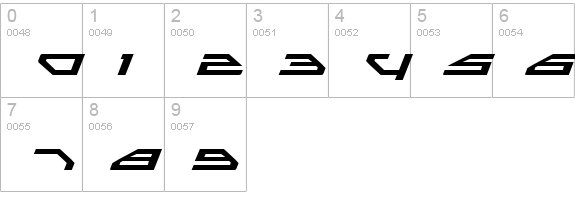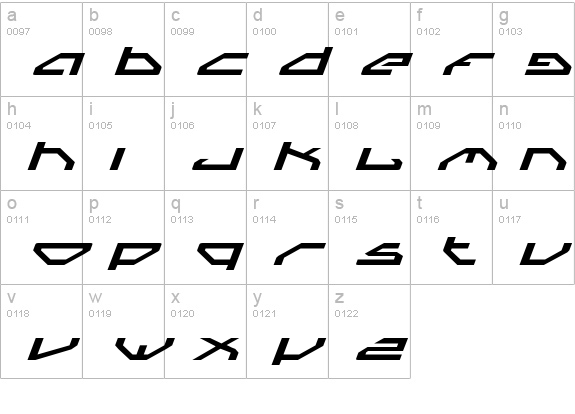
Spylord Expanded Italic is a distinctive, extended-width, italic variant in the Spylord typeface family \xE2\x80\x94 well suited to design and typography projects.
Spylord Expanded Italic font is a captivating and stylish typeface that exudes an air of mystery and intrigue. Its slanted and elongated letterforms add a touch of sophistication, making it the perfect choice for designs that require a touch of boldness and elegance. Designed with meticulous attention to detail, Spylord Expanded Italic font features subtle curves and sharp angles, creating a harmonious balance between sleekness and edge. This unique combination gives the font a distinctive and memorable look, making it ideal for logos, headlines, posters, and other creative projects. One of the most remarkable aspects of Spylord Expanded Italic font is that it is available for free download at FontsMarket.com. This means that you can easily access and use this remarkable typeface in your designs without any cost. Whether you are a professional designer or a passionate enthusiast, this free font will undoubtedly elevate your projects to new heights. With its expanded italic variant, Spylord offers even more versatility and dynamism. The italicized slant adds a sense of motion and energy to the text, making it particularly suitable for projects that require a sense of urgency or action. From thrilling movie posters to eye-catching advertisements, this font will captivate your audience and leave a lasting impression. Whether you are working on a personal project or a professional assignment, Spylord Expanded Italic font is a valuable addition to your font library. Its distinctiveness and elegance make it a go-to choice for designers seeking to add a touch of sophistication and intrigue to their creations. So why wait? Download this remarkable font for free at FontsMarket.com and watch your designs come alive with the power of Spylord Expanded Italic.